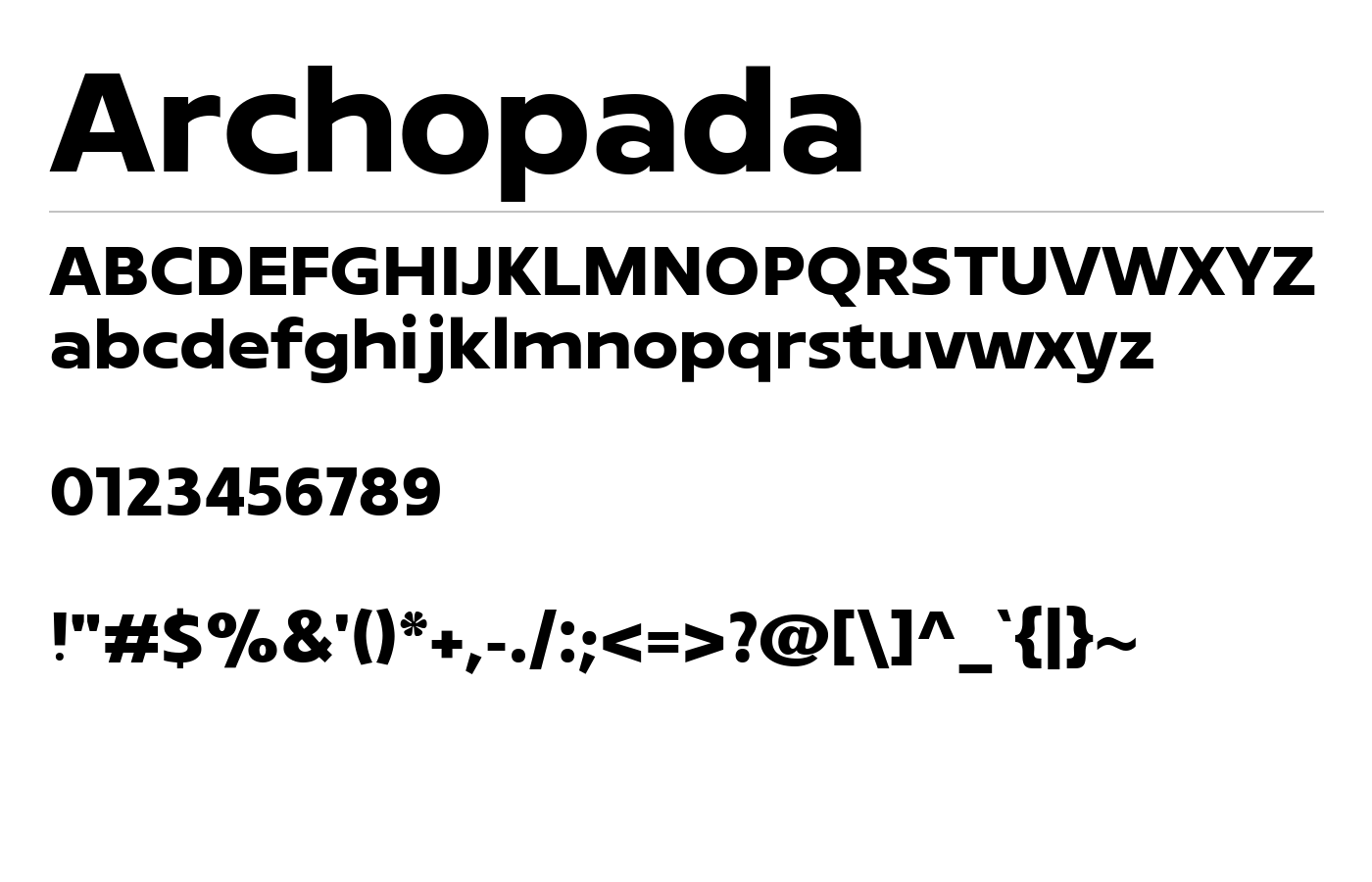
Archopada is a bold, geometric sans serif font that combines strong presence with clean simplicity. Its uniform stroke weight, high x-height, and straightforward letterforms make it highly readable and versatile, ideal for striking headlines, branding, and modern editorial designs. This font exudes confidence and clarity, fitting perfectly with contemporary, professional, and tech-savvy visual identities.
Archopada Font
About Archopada Font